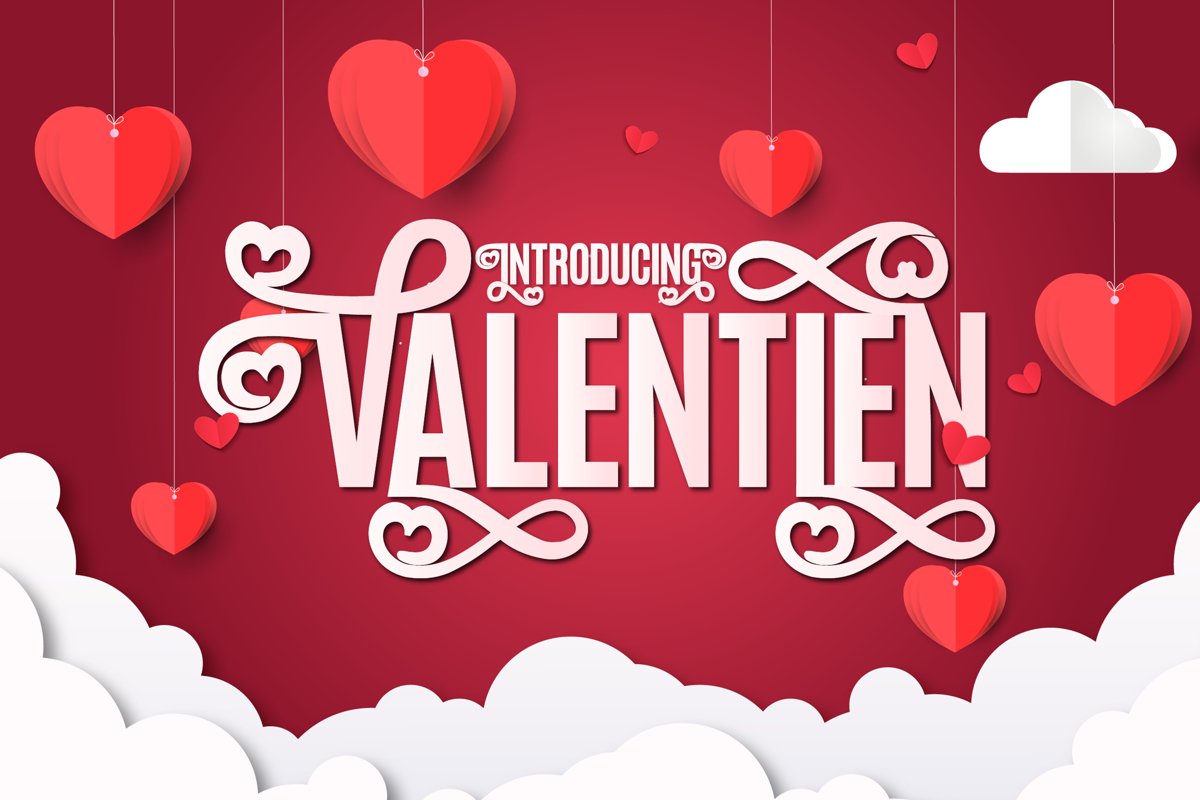
Valentien |For Valentine Day's
Valentien
Introducing our brand new Typeface Valentien. This beautiful and professional type face suitable for Film Posters, Headlines, Block letters, Subheading, Logo Designs, Big Banners. Classic & Decorative Typography Web Designs.
This font was made to enliven the coming day of love. Launched quickly for you so you can create designs for your lover on Valentine's Day. This font valid is formed in 348 letters which are arranged by basic upercase, numbers, functions, multingual support, and there are 131 alternative letters there that you can use. Supports PUA encode.